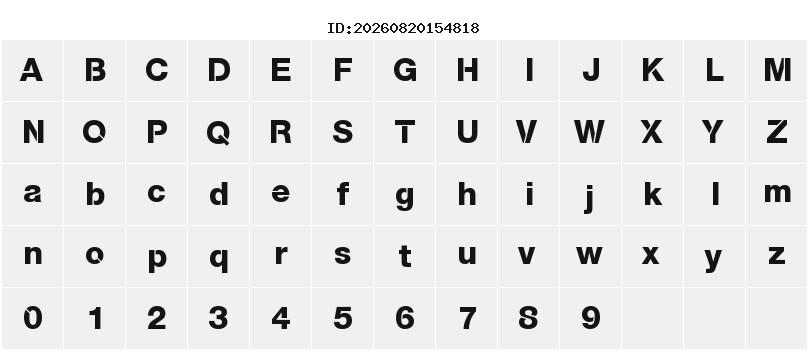
• Font Name: Servetica
• Font Style: Heavy
• Full Font Name: Servetica Heavy
• Designer: Brandon Landaal
About Servetica.ttf
Servetica.ttf is a modern, elegant sans-serif font designed for ultimate readability and visual harmony. Perfect for branding, headlines, web design, and print materials.